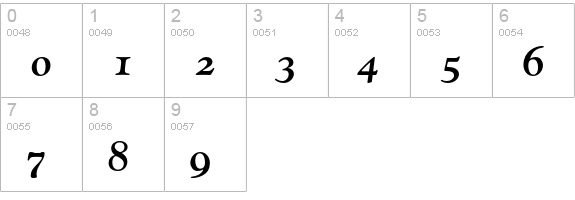
Goudy Bold Italic Old Style Figures is a strong, high-contrast, italic variant in the Goudy typeface family \xE2\x80\x94 well suited to headlines, attention-grabbing titles, and strong calls-to-action.
Goudy Bold Italic Old Style Figures font is a classic and elegant typeface that exudes sophistication and style. With its bold and italic design, this font is perfect for making a statement in headlines, titles, and other prominent text elements. The old-style figures add a touch of vintage charm to any design project. Best of all, this stunning font is available for free download at FontsMarket.com. Whether you're working on a branding project, editorial design, or any other creative endeavor, Goudy Bold Italic Old Style Figures font is sure to elevate your work with its timeless appeal. Don't miss out on the opportunity to add this versatile and eye-catching font to your collection today!